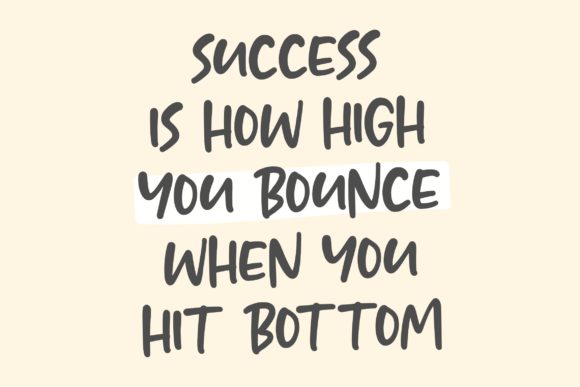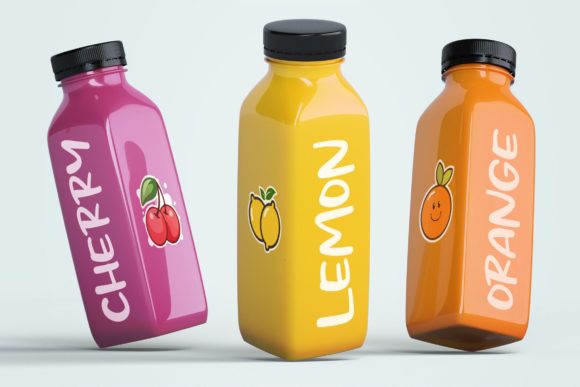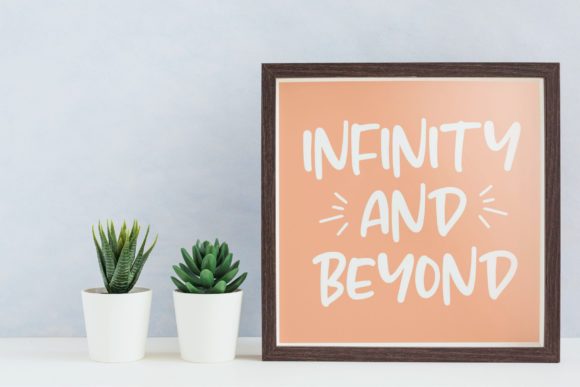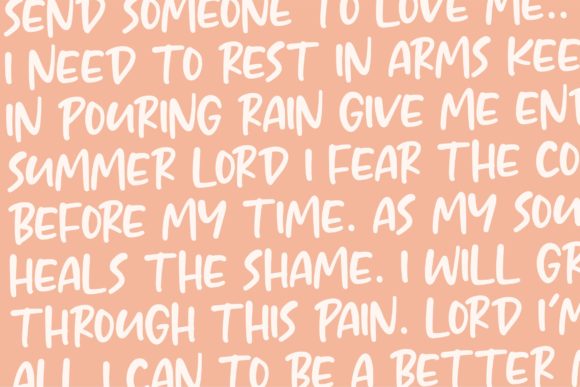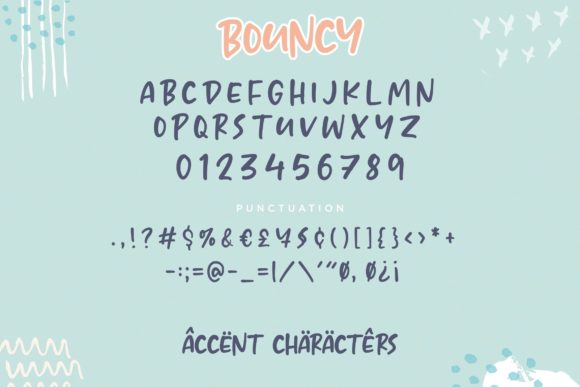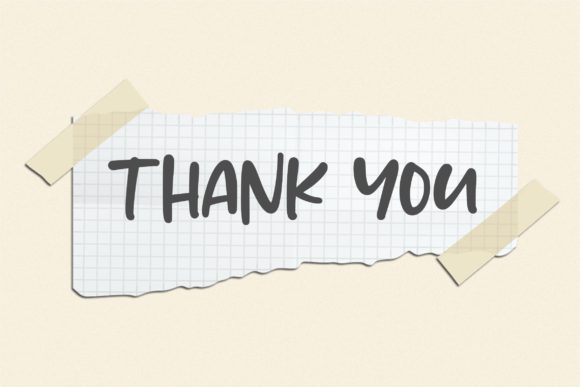
The Bouncy Font: A Cute and Friendly Companion for Your Creative Projects
I’ll never forget the moment I stumbled upon the Bouncy font. I was working on a project for a client’s kids’ party invitations, and I was struggling to find the perfect font that would make the designs pop. That’s when I discovered Bouncy – a cute and friendly handwritten font that instantly brightened up my design. In this article, I’ll share my experience with Bouncy, its features, and how to make the most of it in your creative projects.
My Experience with Bouncy
I was immediately drawn to Bouncy’s playful and cheerful vibe. It’s perfect for projects that require a touch of whimsy and fun. I’ve used it for kids’ party invitations, school projects, and even social media graphics. The font is versatile and works well with various design styles.
- 💕 Cute and friendly handwritten style that’s perfect for kids’ projects
- ✅ Easy to read, even at small font sizes
- 🌈 Highly versatile and works well with various design styles
- 🎉 Fun and playful vibe that’s sure to brighten up your designs
- ⚠️ Limited character set, which may not be suitable for projects that require a wide range of characters
- 🤔 May not work well for body text or long-form content due to its playful nature
The Story Behind Bouncy
Bouncy was designed with the intention of creating a fun and playful font that’s perfect for kids’ projects and creative endeavors. The designer wanted to create a font that’s both cute and easy to read, making it suitable for a wide range of design applications.
Q: What type of projects is Bouncy best suited for?
A: Bouncy is perfect for kids’ projects, school assignments, and creative endeavors that require a touch of whimsy and fun.